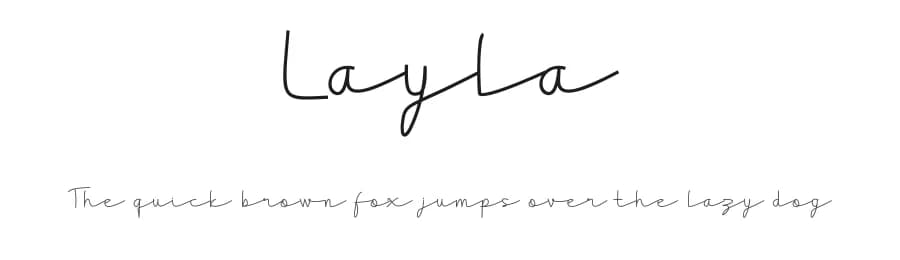
About Layla Font
Layla Font is a script font that shines as a display or heading face. Pair it with a clean sans-serif or serif font for body text β the contrast creates a clear hierarchy while the two styles stay balanced and easy to read.